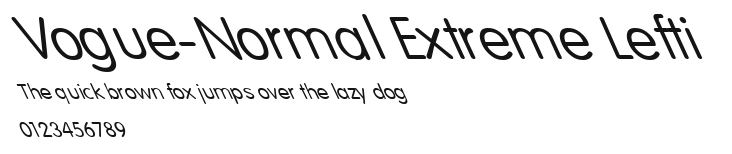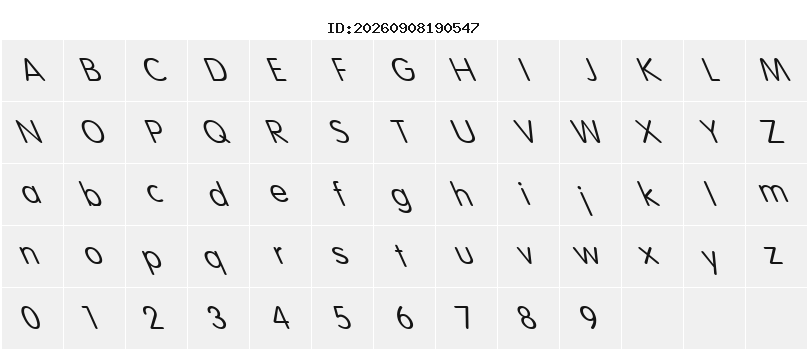
Vogue-Normal Extreme Lefti Preview
• Font Name: Vogue-Normal Extreme Lefti
• Font ID: FontMonger:Vogue Normal Extreme Lefti
• Full Font Name: Vogue Normal Extreme Lefti
• PostScript Name: VogueNormalExtremeLefti
• Character Count: 822
• Copyright: Copyright (c)1993 by Fantazia Concepts
About Vogue-Normal Extreme Lefti.ttf
Vogue-Normal Extreme Lefti.ttf is a modern, elegant sans-serif font designed for ultimate readability and visual harmony. Perfect for branding, headlines, web design, and print materials.